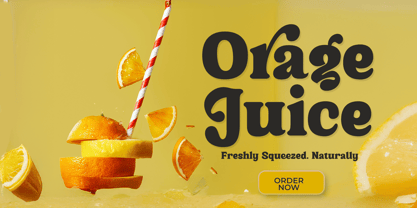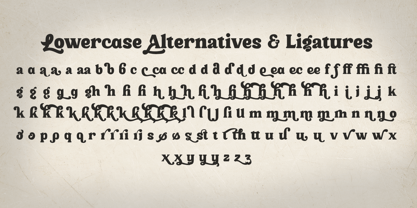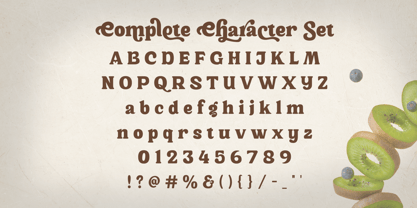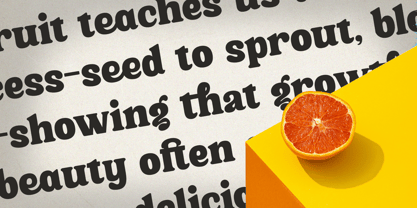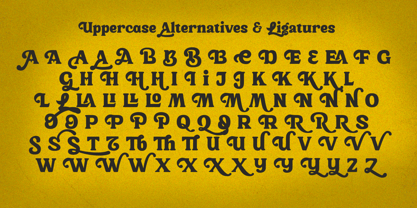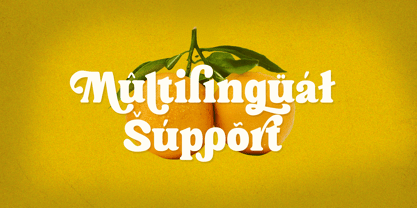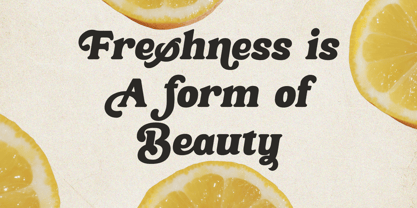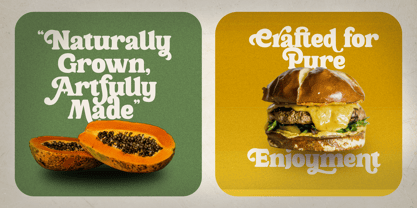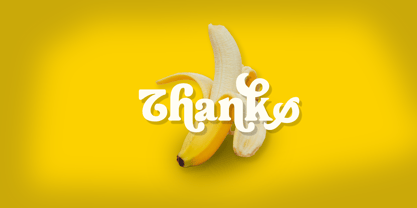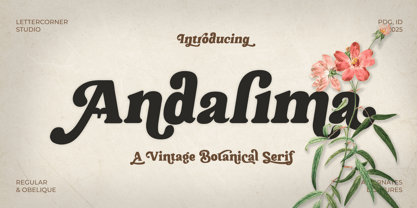
Andalima
The Andalima Font Family was designed by Muhammad Afif Ersya and published by Mevstory Studio. Andalima contains 2 styles and family package options. More about this family
Andalima is a Vintage Botanical Serif that blends classical elegance with a warm, handcrafted organic touch. Inspired by early 20th-century botanical illustration and European serif traditions, Andalima delivers a unique balance between bold letterforms and soft, flowing curves. Designed with personality and clarity in mind, Andalima brings a charming nostalgic mood while remaining highly readable and versatile. Its subtle botanical influence makes it suitable for a wide range of creative applications—from artisanal branding to sophisticated editorial design. Perfect For: • Food & beverage branding • Organic and botanical product packaging • Café, restaurant, and bakery identity • Vintage posters & display headlines • Lifestyle magazines & editorial layouts • Social media, quotes, and promotional visuals Font Features: • Full uppercase & lowercase set • Numerals & punctuation • Smooth curves inspired by botanical aesthetics • Classic serif structure with modern warmth • Great for display sizes, titles, and branding work Whether you're crafting a natural, handcrafted brand or designing expressive typographic visuals, Andalima adds authenticity, charm, and timeless character to every project. Bring your designs to life with a serif that feels both vintage and beautifully organic.